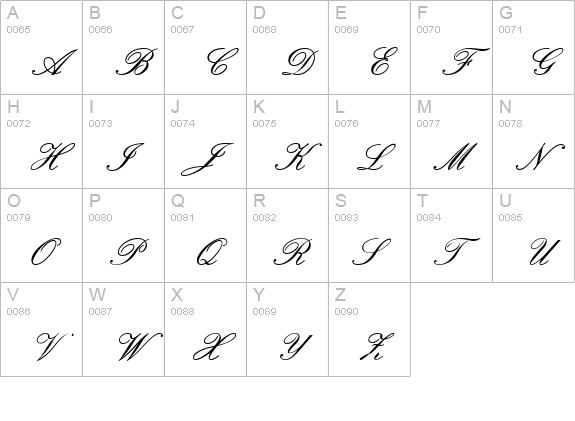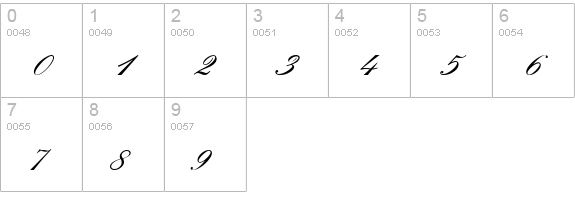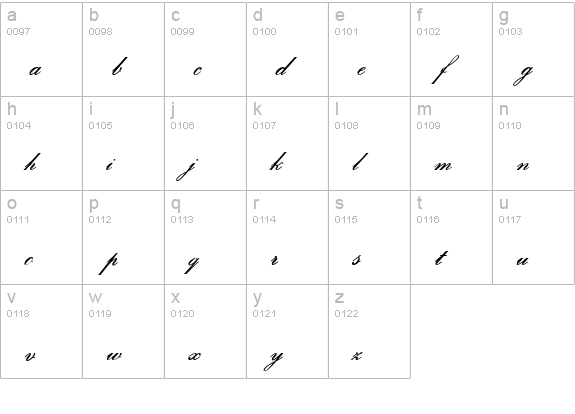
Pamplona-Regular is the standard, neutral variant in the Pamplona typeface family \xE2\x80\x94 well suited to general body text, paragraphs, and standard typographic work.
Pamplona-Regular font is a versatile and elegant typeface that exudes sophistication and style. With its clean lines and classic design, this font is perfect for a wide range of projects, from branding to editorial design. The timeless appeal of Pamplona-Regular makes it a go-to choice for designers looking to add a touch of refinement to their work. What's even better is that Pamplona-Regular is available for free download at FontsMarket.com. You can easily access this high-quality font and elevate your designs without any cost. Don't miss out on the opportunity to enhance your projects with the beauty of Pamplona-Regular font, now available for free at FontsMarket.com.